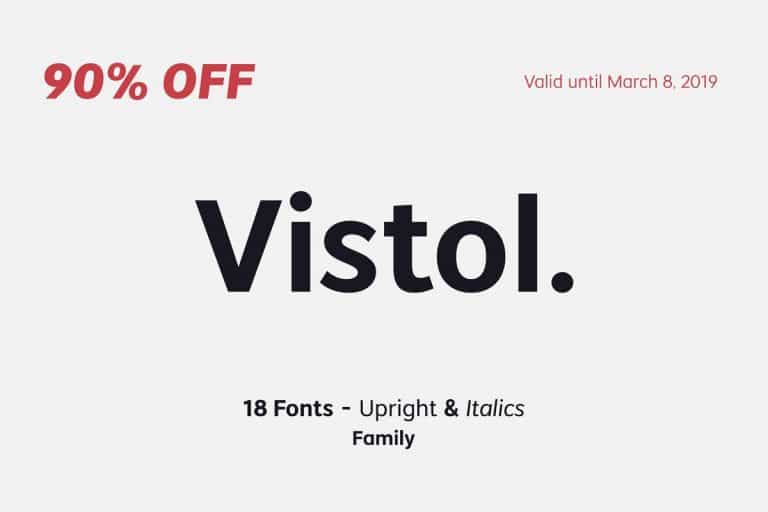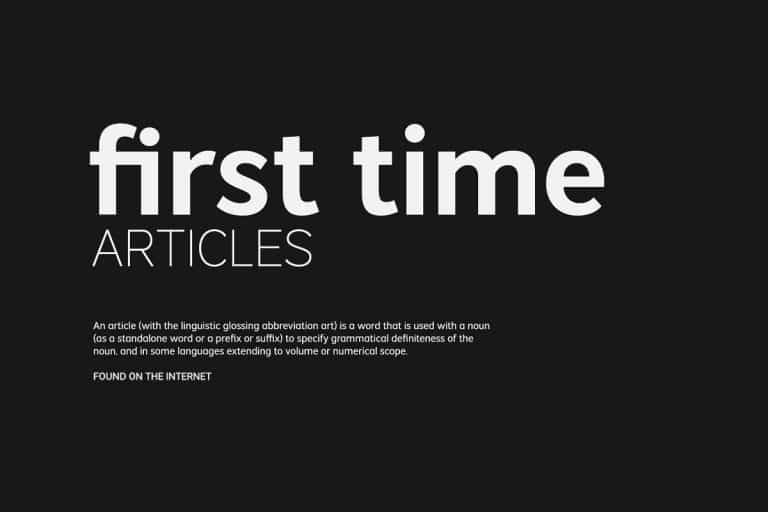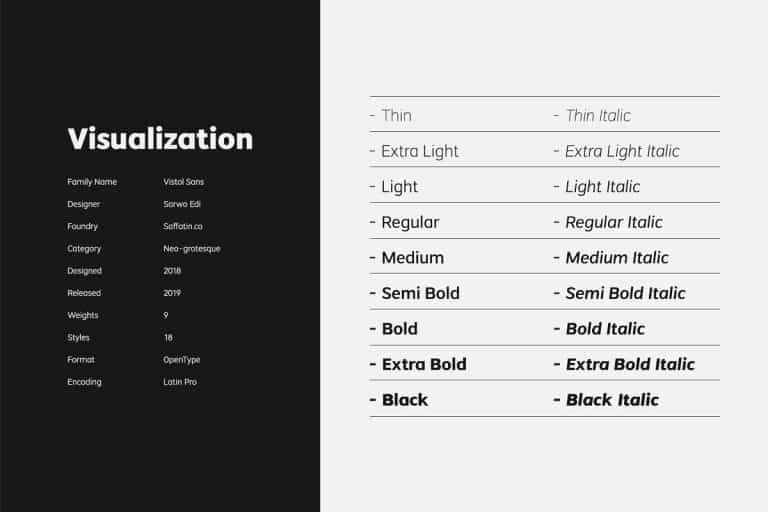
Vistol Sans Latin Pro is a Neo-grotesque sans-serif typeface family! It is available in 18 weights, 9 uprights and their corresponding italics. The Latin Pro Accent, that is used to support the European languages, Extended Latin A and B along with punctuation , numbers ,currecy signs etc. it has a low contrast stroke which makes it perfect for printing as well as packaging and also suitable for articles,titles editorials,publishing logos branding weather small or large text can be used .